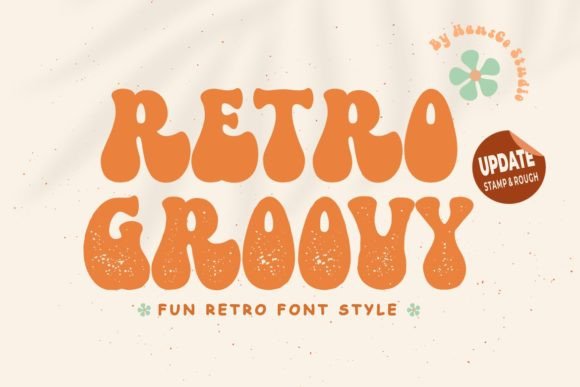
Are you searching for a font that can add a nostalgic touch to your designs? Look no further than Retro Groovy, the perfect display font for your next project! Created by HansCo, this font family delivers an incredible vintage aesthetic that will take you back to the groovy days of the past.
Retro Groovy is a font that exudes playfulness and nostalgia. Its unique design captures the essence of a bygone era, making it the ideal choice for anyone looking to create a retro-inspired design. Use it to create eye-catching headlines, posters, or social media graphics that will transport your audience back in time.
But Retro Groovy isn't just about aesthetics. This font has been masterfully designed to become a true favorite among designers. Its unique features make it highly versatile, allowing you to use it for a wide range of design projects. And with its potential to elevate each of your creative ideas to the highest level, Retro Groovy is a font that you'll turn to time and time again.